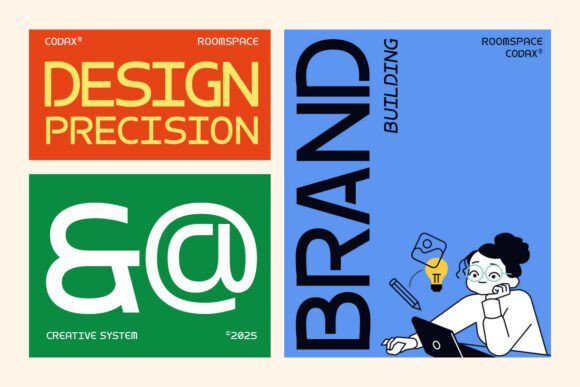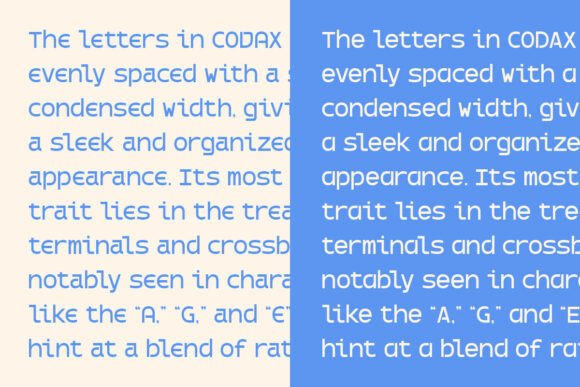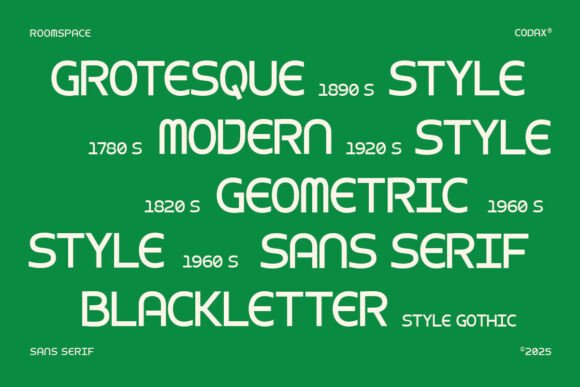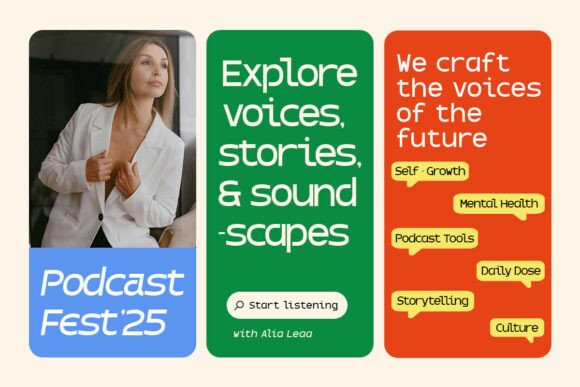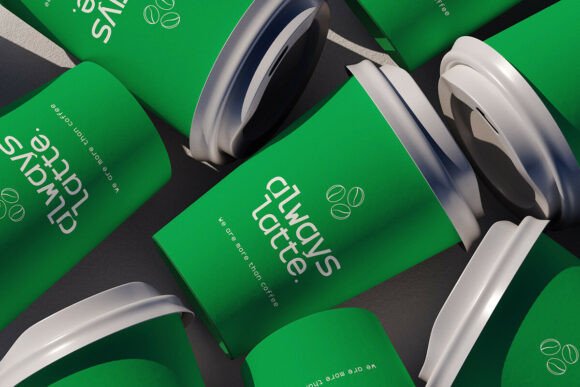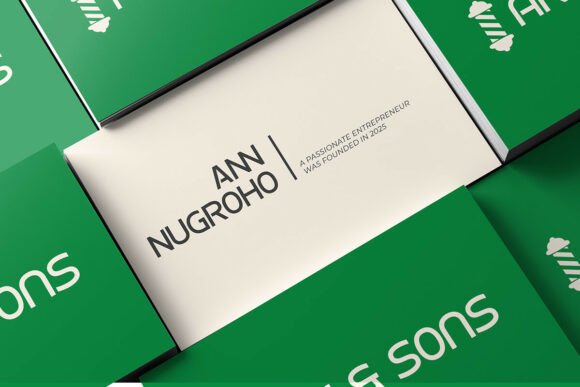
Codax Font: The Ultimate Choice for Modern Designs
In the world of typography, fonts play a crucial role in defining the tone and aesthetic of a design. For designers and crafters looking for a font that embodies simplicity, precision, and a futuristic look, Codax is an excellent choice. This rounded geometric sans serif font is designed to give your designs a sleek, modern tone while maintaining excellent readability.
What is Codax Font?
Codax is a carefully crafted font that boasts a clean and futuristic appearance. Its rounded geometric sans serif design makes it perfect for a wide range of applications, from tech startups to UI/UX design, digital branding, logos, apps, and futuristic editorial layouts. The font’s smooth curves and bold structure create a friendly, modern, and versatile style that is sure to make your designs stand out.
Key Features of Codax Font
- Rounded Geometric Design: Codax features a rounded geometric sans serif design that gives it a unique and modern look.
- Clean and Futuristic Appearance: The font’s clean lines and precise curves create a futuristic appearance that is perfect for tech startups and digital branding.
- Excellent Readability: Codax is designed with readability in mind, making it easy to read and understand, even at small font sizes.
- Smooth Curves and Bold Structure: The font’s smooth curves and bold structure create a friendly and approachable tone that is perfect for a wide range of applications.
- Versatile Style: Codax is a versatile font that can be used for a variety of design projects, from logos and branding to UI/UX design and editorial layouts.
Why Choose Codax Font?
There are many reasons why designers and crafters should choose Codax font for their design projects. Here are a few:
- Uniqueness: Codax has a unique and distinctive look that sets it apart from other fonts.
- Modern Tone: The font’s modern design gives it a sleek and contemporary tone that is perfect for tech startups and digital branding.
- Readability: Codax is designed with readability in mind, making it easy to read and understand, even at small font sizes.
- Versatility: The font’s versatile style makes it perfect for a wide range of design projects, from logos and branding to UI/UX design and editorial layouts.
Use Cases for Codax Font
Codax font is perfect for a wide range of design projects, including:
- Tech Startups: Codax is perfect for tech startups looking for a modern and sleek font to represent their brand.
- UI/UX Design: The font’s clean and futuristic appearance makes it perfect for UI/UX design projects.
- Digital Branding: Codax is ideal for digital branding projects, including logos, websites, and social media graphics.
- Logo Design: The font’s unique and distinctive look makes it perfect for logo design projects.
- Apps: Codax is perfect for app design projects, including mobile apps and web applications.
- Futuristic Editorial Layouts: The font’s futuristic appearance makes it perfect for editorial layouts, including magazines, newspapers, and blogs.
In conclusion, Codax font is a must-have for designers and crafters looking for a modern and sleek font to represent their brand. Its unique and distinctive look, combined with its excellent readability and versatility, make it perfect for a wide range of design projects. Whether you’re working on a tech startup, UI/UX design project, digital branding project, or editorial layout, Codax font is an excellent choice.